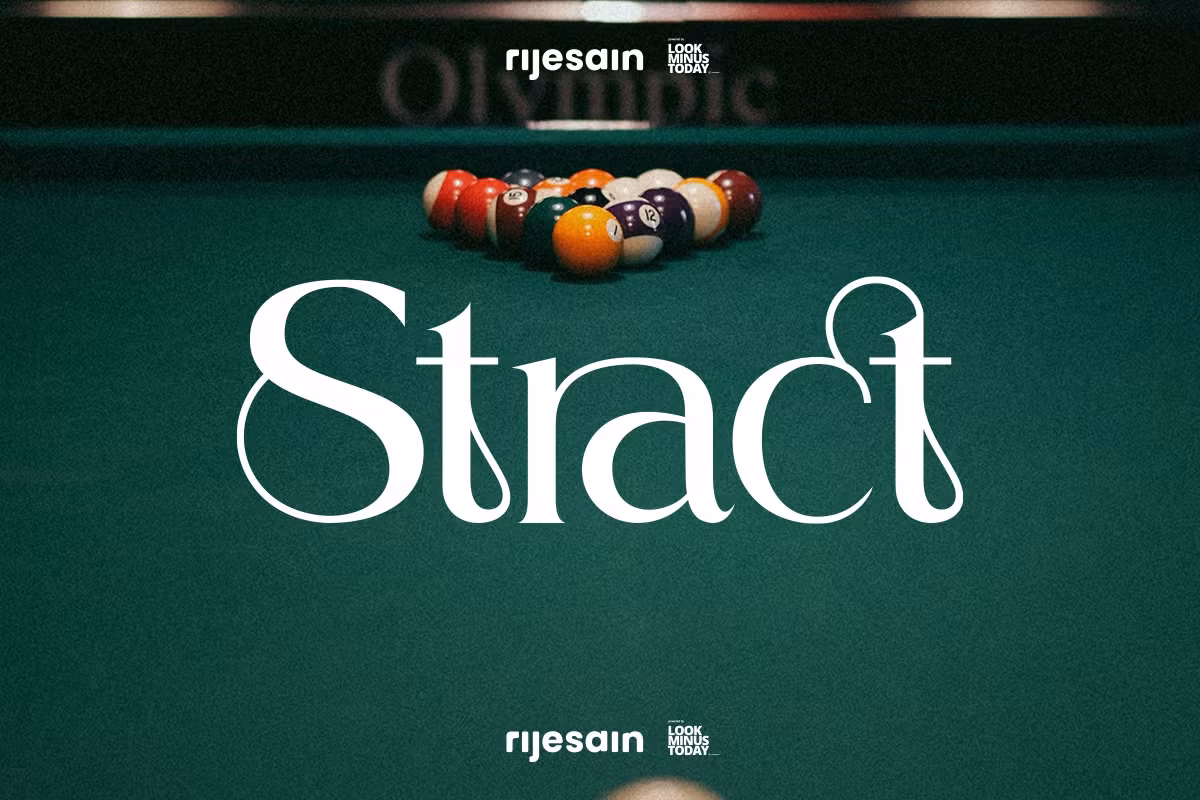
Stract Display Serif Font Free Download is a bold and striking typeface designed to make a statement. With its sharp serifs, high contrast, and modern elegance, this display font is perfect for large headlines, branding, posters, logos, and any project that needs an eye-catching typographic design.
Whether you're designing for a fashion brand, creating a striking advertisement, or working on a modern editorial layout, Stract brings clarity, strength, and elegance to your typography. It’s the ideal font for designers seeking a bold, professional aesthetic with a unique flair.